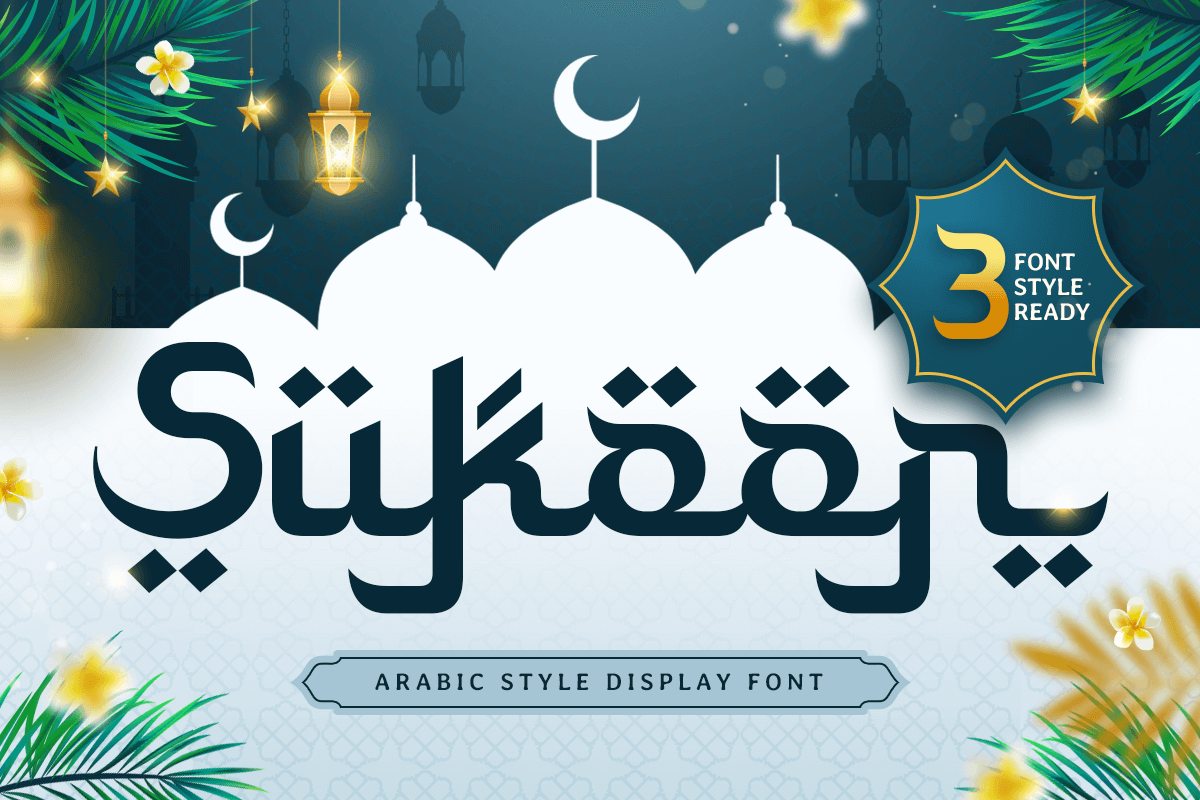
Sukoon
-Arabic Font
Sukoon - Arabic Font
Sukoon is an Arabic style display font crafted to bring cultural richness and bold visual impact to your typography. With decorative forms inspired by Arabic lettering aesthetics, this font delivers a distinctive atmosphere—ornamental, expressive, and perfect for statement-making design.
Designed for high-visibility use, Sukoon works beautifully across headlines, posters, logos, packaging, signage, social media graphics, event promotions, and cultural branding. Its display-driven structure helps your designs feel authentic and eye-catching, while maintaining a modern balance that fits both traditional and contemporary concepts.
Whether you’re creating Ramadan and Eid campaigns, Middle Eastern restaurant branding, cultural festival posters, or elegant product labels with an Arabic-inspired mood, Sukoon provides a powerful typographic voice that feels warm, artistic, and memorable.
Inspiration Behind Sukoon
Sukoon is inspired by Arabic calligraphic influence and ornamental display typography—where flowing rhythm, decorative structure, and cultural identity shape the message. The design focuses on bold forms and elegant details to support modern branding and cultural visuals with a refined Arabic-inspired character.
Sukoon Font Features:
• Arabic-style display letterforms with decorative cultural character
• Strong visual impact for headlines, posters, and branding
• Ready with 3 weights: Light, Regular and Bold version
• Ideal for cultural campaigns, restaurant menus, and product packaging
• Cultural branding, Arabic-inspired logos, and headline typography
• Ramadan & Eid promotions, festival posters, and event graphics
• Restaurant menus, café branding, and Middle Eastern packaging
• Signage, product labels, and decorative marketing layouts
• Social media campaigns, ads, and modern cultural design projects
Bring cultural elegance to your headlines with Sukoon—an Arabic-style display font made to stand out beautifully. ✨